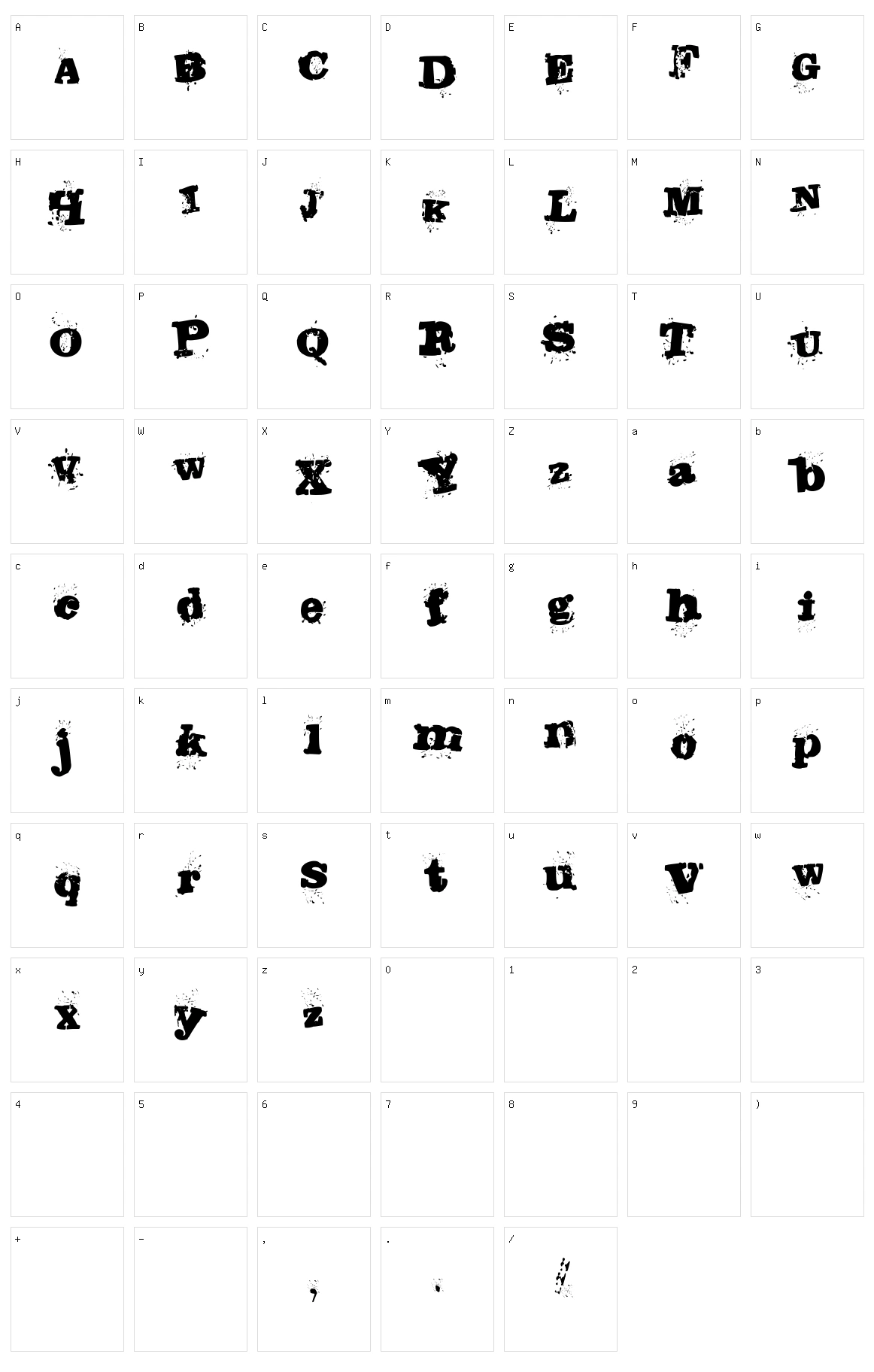
The free font Stampede is carefully designed by Manfred Klein, showcasing a thoughtful balance of creativity and usability and falls under the Destroy font style. When you download the ZIP file, it contains only 64.25 KB of font files, making it lightweight and quick to download. Please review the license details below to understand permitted usage and distribution rights. If license information is not available, we recommend using this font for personal projects only or contacting the author directly for commercial usage permissions.